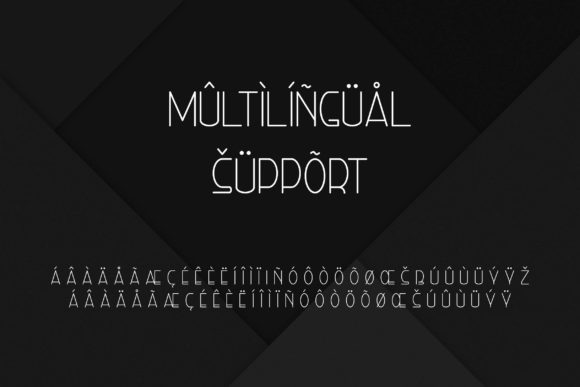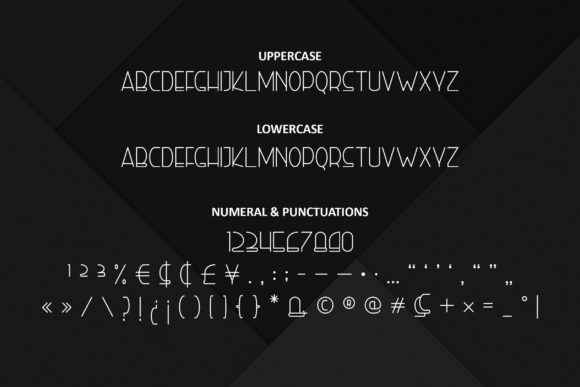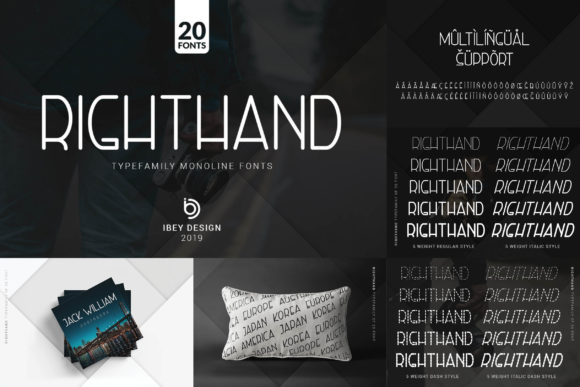
Introduction to Right Hand Light Font
As a designer, there’s nothing quite like the thrill of brainstorming ideas for a new project. It’s that moment when the creative juices start flowing, and you can almost see your concept take shape. For me, it’s often sparked by a single, elegant line – a hallmark of a well-designed graphic. And that’s exactly what drew me to the Right Hand Light Font, a modern monoline font that’s perfect for crafting, photography, and just about any other creative project.
With its high-quality design and versatility, the Right Hand Light Font has become a go-to resource for designers looking to add a touch of sophistication to their work. Whether you’re working on a social media post, a logo, or a product label, this font is sure to elevate your design. And the best part? It’s available for free download, making it an accessible design resource for creatives of all levels.
Key Features of Right Hand Light Font
- Unique and elegant design, perfect for creative projects that require a touch of sophistication.
- Comes in a high-quality, transparent background design, making it ideal for overlaying on images or videos.
- Designed to be highly legible, with clear lines and smooth curves, making it perfect for body text or titles in your design resource.
- Resolution-independent, allowing it to scale seamlessly from small to large sizes without losing its clarity.
- Includes a range of glyphs, including Latin, Cyrillic, and Greek characters, making it a versatile design resource for global audiences.
Honest Review: Right Hand Light Font
I recently came across the Right Hand Light Font, and I must say it’s a fantastic addition to any design resource library. This free download offers a high-quality font that’s perfect for creative projects.
What works well with this font is its versatility. It’s available in various styles, from casual to formal, making it a great choice for a wide range of design needs. The font also features a transparent background, which is ideal for designers who want to add a touch of elegance to their work.
- ✨ Clean and modern design
- ✨ High-quality font with a transparent background
However, I did encounter a few limitations while using the Right Hand Light Font. The font may not be suitable for very small text sizes, as the letters can become blurry. Additionally, some users may find the font too light or thin, which can make it difficult to read.
Overall, I’m impressed with the Right Hand Light Font. It’s a great design resource that’s perfect for creative projects. With its clean design, high-quality font, and transparent background, it’s definitely worth adding to your design library.
- ⚠️ May not be suitable for very small text sizes
- ⚠️ Can appear too light or thin for some users
Experiment with different font sizes, colors, and combinations to achieve the desired effect. Use it for headings, titles, or body text to add a touch of elegance to your design.
The Right Hand Light Font is ideal for creative projects, such as graphic design, typography, and branding. Use it for social media graphics, posters, flyers, or any other design that requires a high-quality, elegant font.